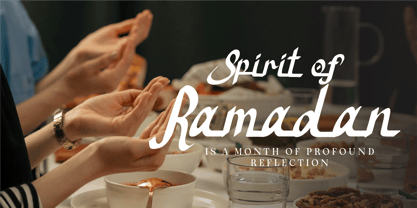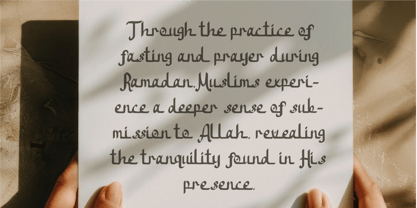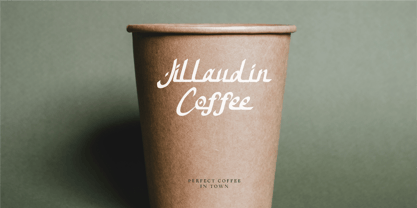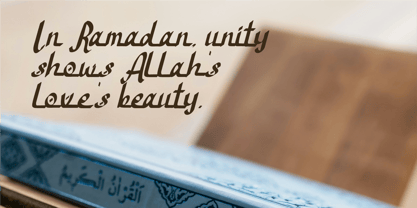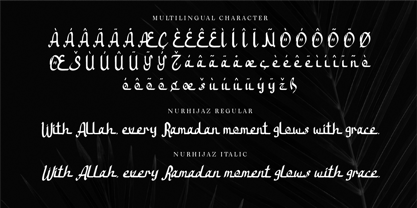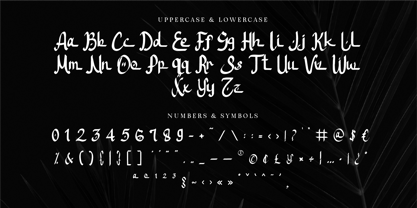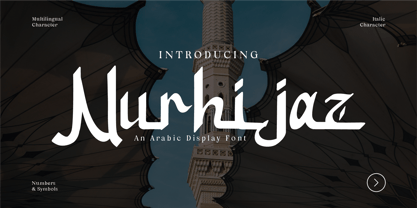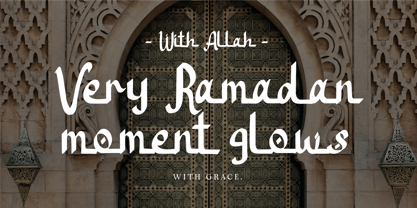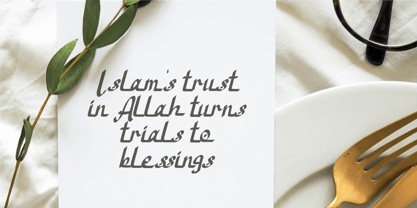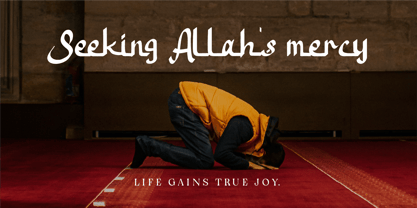
CF Nurhijaz
Nurhijaz – A Bold & Refined Arabic Display Font
Introducing Nurhijaz, an Arabic display font that seamlessly blends traditional calligraphic influence with a modern typographic edge. Featuring sharp strokes, italic-like flair, and a unique rhythm inspired by Arabic script forms, this typeface is crafted for projects that demand cultural elegance, strength, and visual presence.
Perfect for branding, religious or spiritual themes, book covers, posters, editorial layouts, and ceremonial event designs, Nurhijaz speaks with both authority and grace. Its bold structure is ideal for headlines and display use, while its multilingual characters, numerals, and symbols offer versatility across global projects.
Why Choose Nurhijaz?
🕌 Arabic-Inspired Elegance: A unique display font with calligraphic Middle Eastern essence.
🖋 Refined & Strong Letterforms: Bold contrast, slanted accents, and striking visual flow.
📖 Perfect for Ceremonial & Cultural Designs: Great for religious, historical, or themed branding.
🌍 Multilingual Ready: Includes numbers, symbols, and multilingual character support.
- Standard Character A-Z, a-z, 0-9, Punctuation & symbols
- Regular and Italic